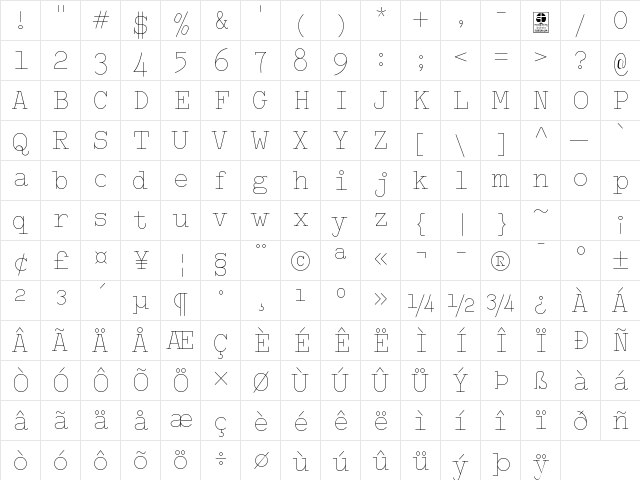
Typo Writer Thin Demo Regular
| Foundry | StudioTypo |
| Designer | MEHMET ABACI |
Design Context for Typo Writer Thin Demo Typeface
Typo Writer Thin Demo offers clean, dependable letterforms without strong stylistic allegiance, making it a practical choice for designers who need flexibility. The delicate stroke weight brings airiness and refinement to layouts.